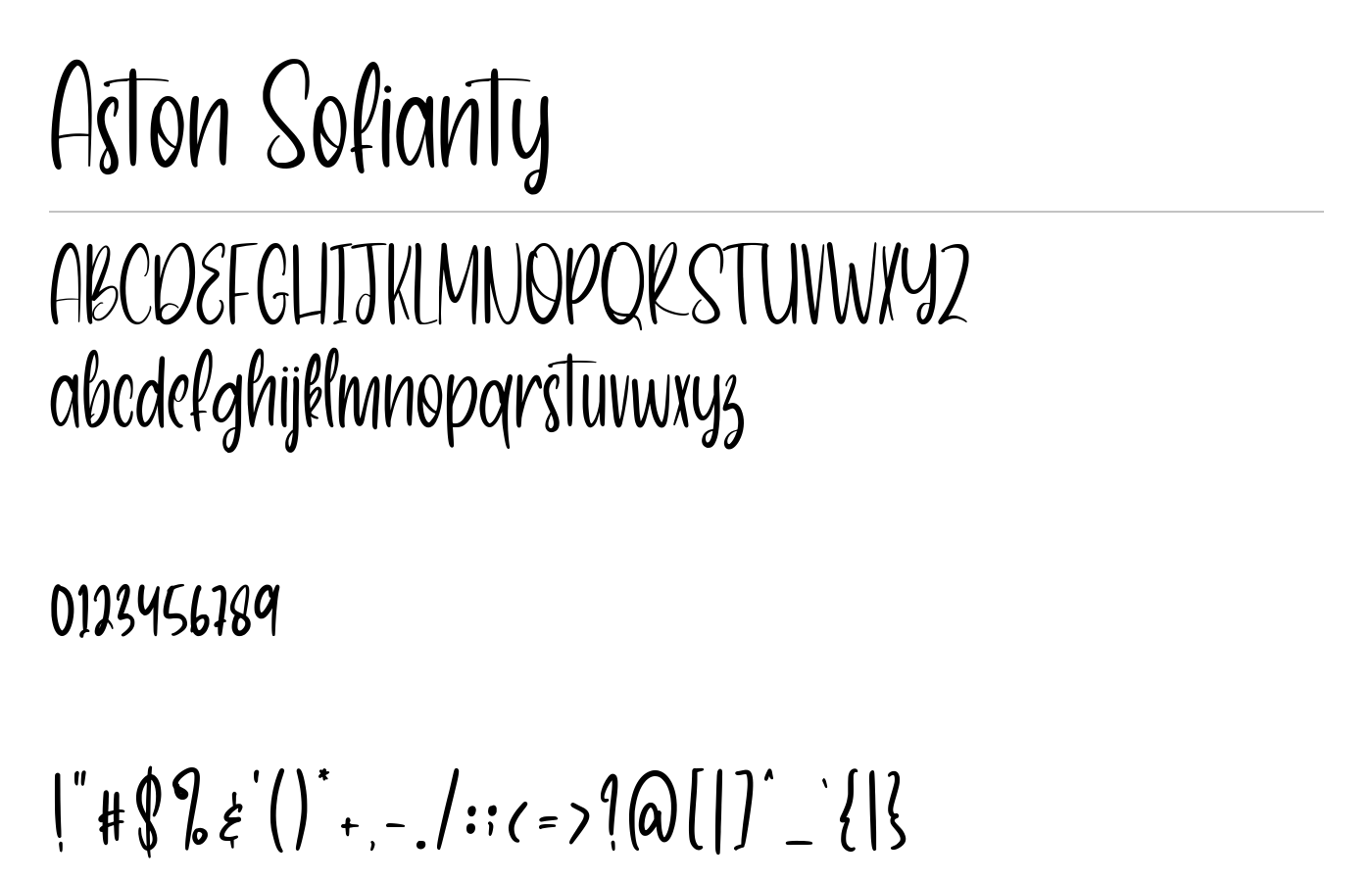
Aston Sofianty is a playful and casual handwritten sans serif font characterized by tall, narrow letterforms with smooth, flowing strokes and a slightly bouncy rhythm. Its light weight and consistent stroke width give it an informal, friendly feel, making it ideal for creative projects, personal branding, and whimsical designs where a warm, approachable vibe is desired. This font works well in headlines, invitations, and social media graphics where personality and a touch of charm are needed.
Aston Sofianty Font
About Aston Sofianty Font